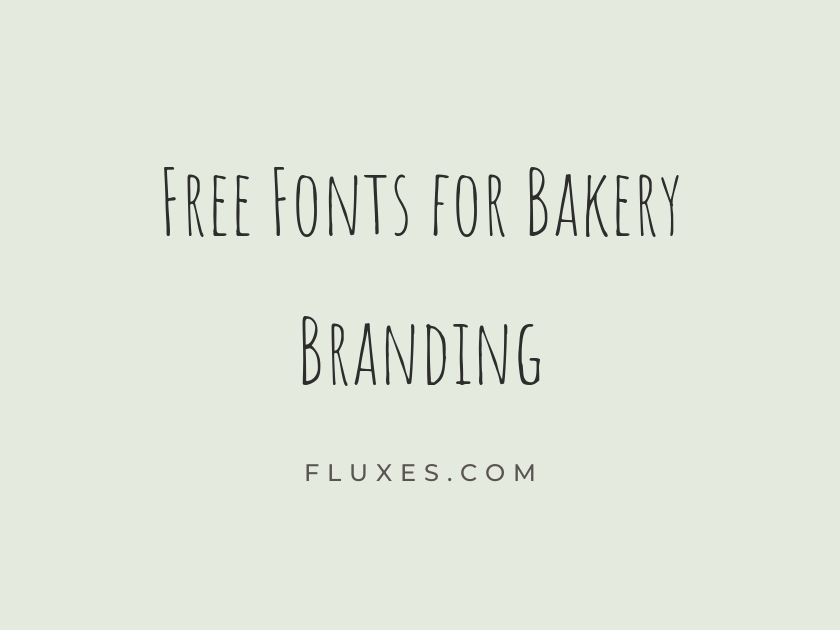
62 Best Free Fonts for Bakery Branding
Bakery branding lives or dies on warmth. A great loaf, a beautiful cake, or a case full of pastries needs a typeface that feels handmade, inviting, and a little indulgent, whether that means a looping script on a cake box or a sturdy slab on a sourdough bag. The best free fonts for bakery branding tend to fall into a few families: playful hand-lettered scripts for logos, rustic serifs and slabs for rye bread and farmhouse loaves, elegant serifs for patisserie and wedding cakes, and rounded sans-serifs for cheerful cupcake shops. Every option below is free on Google Fonts, so you can download and test them on menus, packaging, and signage without licensing headaches.
Fresh sourdough baked every single morning
Skinny, hand-drawn, and just a little wobbly, Amatic SC reads like it was cut by hand for a farmers market chalkboard. It works best big, as a headline or logotype, since the thin strokes can thin out to nothing at small sizes.
Sweet treats made with love daily
Pacifico is the surf-shop script that somehow also became a bakery favorite, all soft curves and friendly bounce. It suits cupcake shops and donut counters that want to feel fun rather than formal.
Artisan patisserie since eighteen ninety two
High contrast strokes and a sharp, fashion-editorial finish make Playfair Display the choice for bakeries positioning themselves as refined or heritage-driven. Pair it with a simple sans for body copy so the drama stays in the headline.
Handcrafted cupcakes for every celebration
A delicate, single-stroke script with tight, romantic letterforms, Sacramento suits cake boxes and ribbon labels more than large signage. Keep it for short phrases like a shop name or tagline.
Warm donuts, happy mornings, sweet smiles
Fredoka is round, plump, and cheerful, almost like the pastries themselves. It reads well on packaging aimed at kids and families, and it holds up nicely in both very bold and lighter weights.
Wedding cakes designed with elegant care
Fluid and confident, Alex Brush feels like it was signed rather than typed. It is a natural fit for custom cake designers and dessert catering brands that lean into a luxe, personal touch.
Custom cakes for your special day
Great Vibes leans more formal and old-fashioned than most scripts here, with long, elegant swashes. Reserve it for wedding and celebration cake branding where a bit of ceremony is welcome.
Delicate pastries, timeless French technique
This is a serif built for French patisserie moods: slim, refined, and quietly literary. It gets muddy at very small text sizes, so use it for headlines, pastry case labels, and pull quotes rather than dense paragraphs.
Bold flavor, bigger cupcakes, fresh
Loud, comic-book bold, Bangers brings energy to bakeries with a fun, retro-diner personality. Think milkshake and cupcake shops rather than quiet neighborhood bread stalls.
Round buns, rounder smiles guaranteed
Baloo 2 has soft, rounded terminals that echo the shape of a good bun or roll, and it stays legible even in smaller weights. It is an easy, friendly workhorse for menus and packaging alike.
Rich chocolate torte, baked fresh daily
Abril Fatface is heavy, glossy, and dramatic, the kind of display serif that makes a chocolate torte photograph feel even richer. Use it sparingly, as a hero word rather than a full sentence.
Freshly frosted, made with love
One of the most widely used scripts for a reason: Dancing Script is bouncy, easy to read, and pairs naturally with almost any clean sans. It has become something of a default for bakery logos, so consider it alongside a distinctive icon to help the brand stand out.
Old world bakery, new world flavor
Yeseva One mixes old-world serif detailing with a slightly quirky, condensed body, giving it a vintage bakery poster feel without tipping into costume-y territory.
Gooey brownies straight from the oven
The name says it all. Chewy’s puffy, cartoonish letterforms suit a bakery that wants to look fun and a little indulgent, especially for brownie, cookie, or candy-adjacent branding aimed at a younger audience.
Classic recipes, honest ingredients, baked slowly
EB Garamond is a restrained, old-style serif that reads as trustworthy and unfussy, ideal for ingredient lists, story-driven “about us” copy, and bakeries that want to emphasize tradition over trend.
Sweet somethings baked just for you
Kaushan Script has a marker-brush energy, thicker and more casual than most formal scripts. It works well stamped across kraft paper packaging or a bakery van.
Hearty rye loaves, stone-milled flour
A slab serif with the weight and texture of a well-baked crust, Bevan suits rustic bread bakeries and farmhouse branding that wants something sturdier than a script.
Soft pretzels, warm and golden brown
Comfortaa’s geometric, rounded shapes give it a modern, slightly Scandinavian calm that suits minimalist bakery branding, coffee-and-pastry cafes, and packaging that leans clean rather than rustic.
Keep body copy, ingredient lists, and nutrition information in a clean, highly legible font like Libre Baskerville, Nunito, or Patrick Hand, since decorative fonts can quickly become hard to read at small sizes on labels.